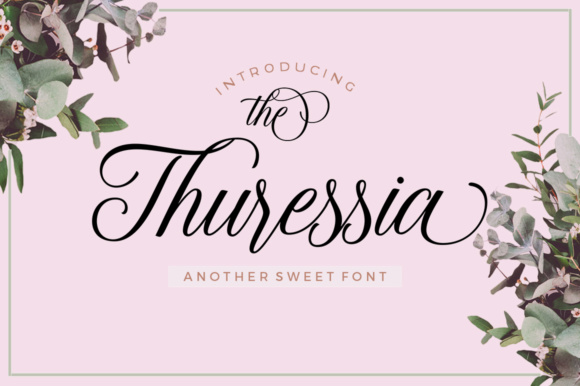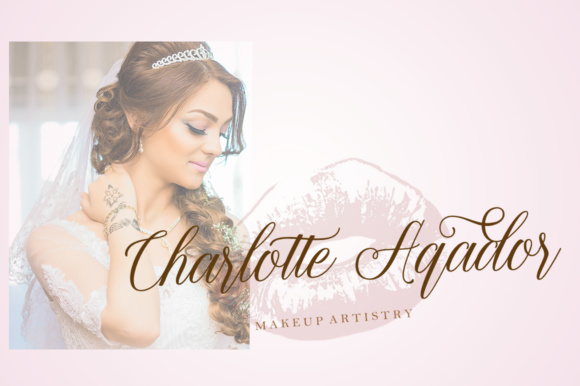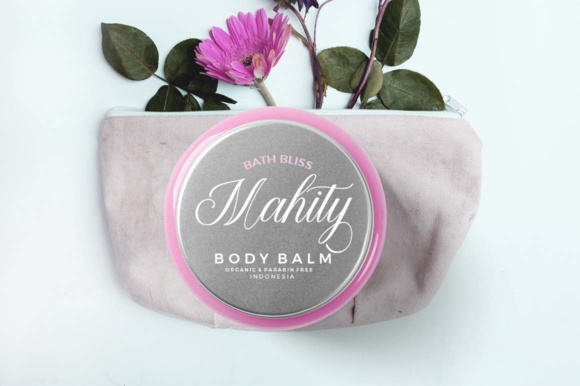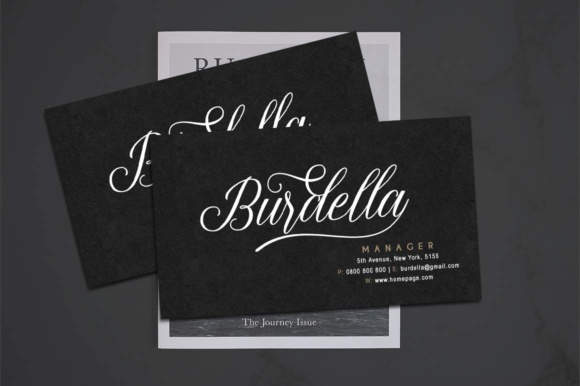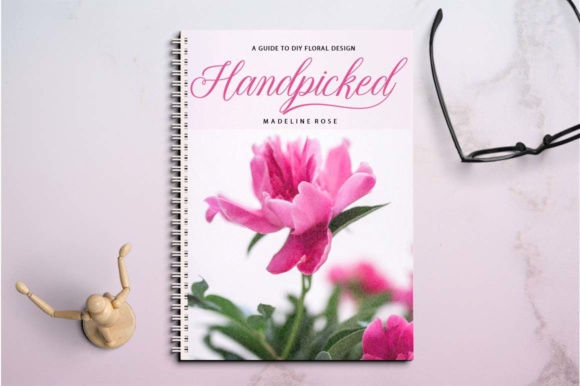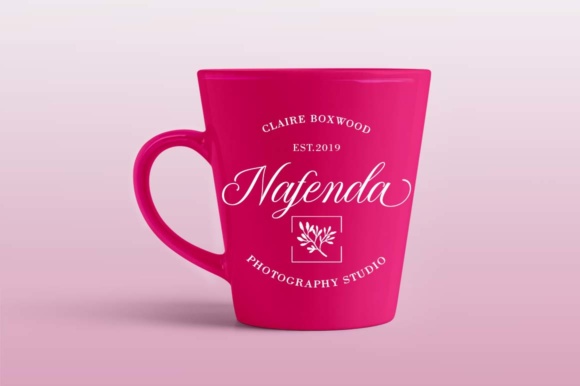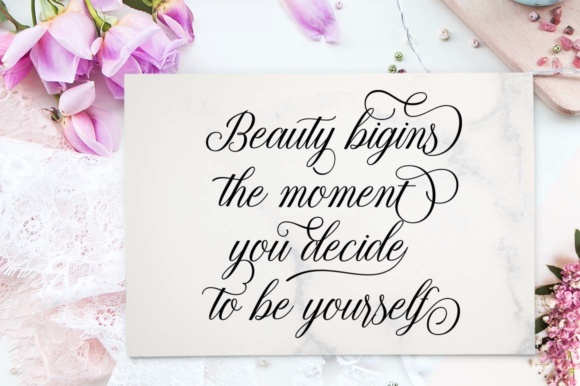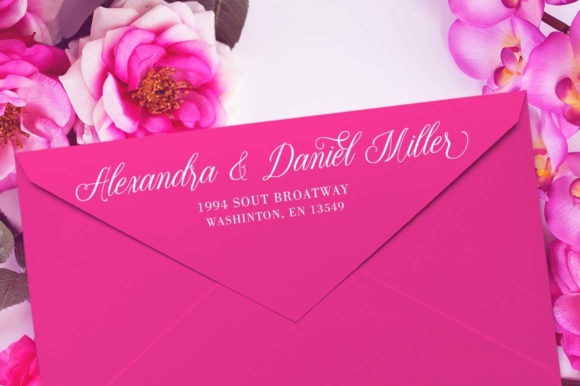
The Thuressia Script Font
About The Thuressia Script Font
Thuressia Script has a modern calligraphy style with a casual and pretty feel and lots of beautiful swashes. The Thuressia can be used for various purposes such as logos, product packaging, wedding invitations, branding, headlines, signage, labels, and much more!